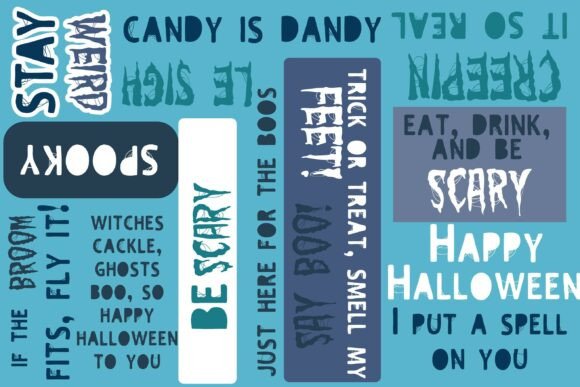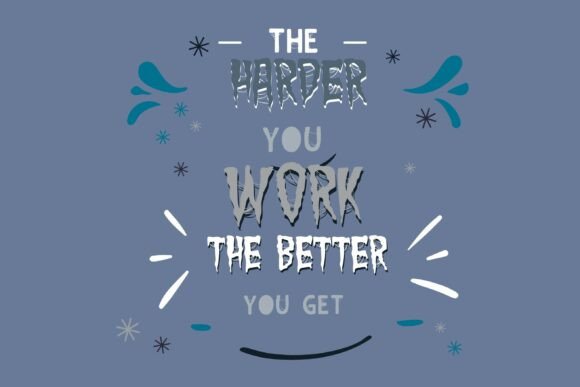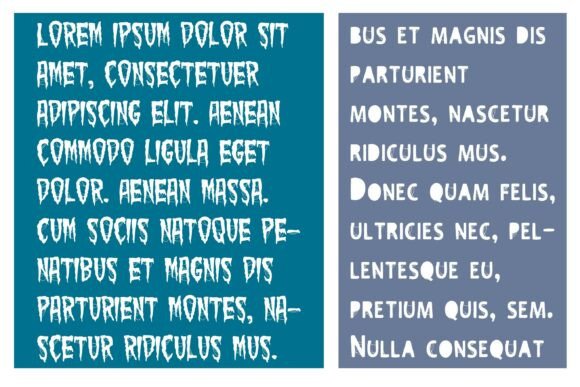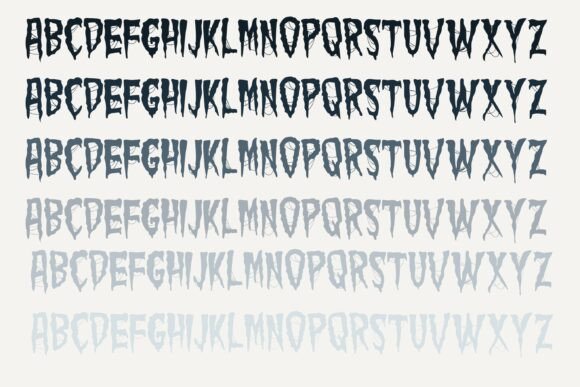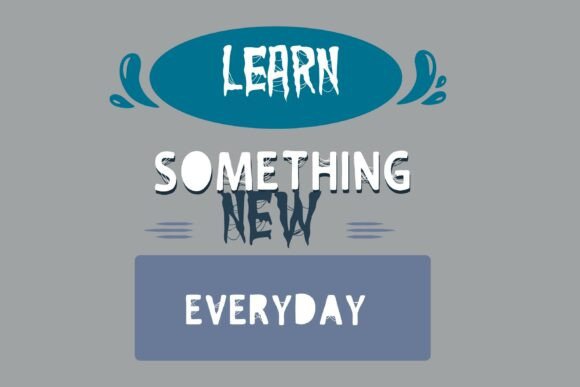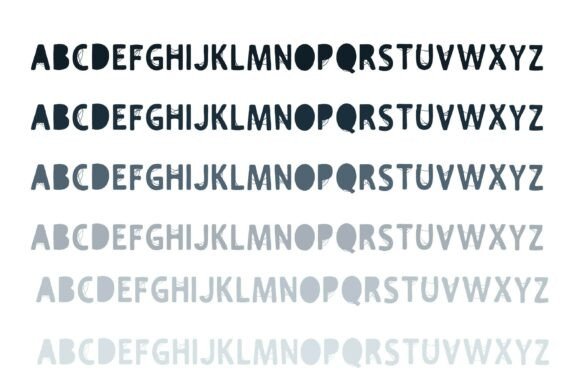
Unleashing the Dark Charm of Macabre More Duo Font
Have you ever stared at a blank canvas, trying to conjure up the perfect design for a spooky-themed project? I know I have. The flickering candles, the creepy shadows, and the eerie atmosphere all scream for a font that’s as haunting as it is beautiful. That’s where the Macabre More Duo Font comes in – a hand-crafted font duo that combines a webby, scary, pointy font with a perfectly coordinated sans serif. With all family members combined, you get 6 fonts altogether!
As a designer, I can attest to the value of having a versatile font like Macabre More Duo Font in your arsenal. It’s perfect for any creative project that requires a touch of darkness and whimsy. Whether you’re working on a horror-themed poster, a mysterious novel cover, or a gothic-inspired website, this font duo will help you create a design that’s both high-quality and visually striking. And the best part? It’s available for free download, making it an invaluable resource for designers on a budget.
Key Features of Macabre More Duo Font
- High-quality, unique design suitable for creative projects, including horror and gothic themes.
- Comes with a transparent background, allowing for easy customization and integration into various designs.
- Includes two font styles (Macabre More Duo Font Regular and Macabre More Duo Font Italic) for added versatility.
- Supports a range of languages, including English, making it suitable for international creative projects.
Honest Review: Macabre More Duo Font
I recently stumbled upon the Macabre More Duo Font, and I must say, it’s been a fantastic addition to my design resources. This font is perfect for any creative project that needs a touch of elegance and mystery.
- ✨ High quality design: The Macabre More Duo Font is a beautifully crafted font that’s sure to elevate your designs.
However, I do have a few minor complaints. The font is a bit limited in terms of its character set, and it’s not ideal for projects that require a lot of text.
- ⚠️ Limited character set: The Macabre More Duo Font only comes with a limited set of characters, which can be a bit restrictive for some designers.
- ⚠️ Not ideal for large text: The font is best used for small to medium-sized text, as it can become difficult to read when used for larger text.
Overall, I’m really impressed with the Macabre More Duo Font. While it has its limitations, it’s a high-quality font that’s perfect for any creative project. I highly recommend it as a design resource, especially for those who are looking for a free font with a unique style.
Macabre More Duo Font
The Macabre More Duo Font is a unique and versatile design resource that can add a touch of elegance to your creative project. With its high quality and transparent background, this font is perfect for any design project.
The Macabre More Duo Font is perfect for a variety of design projects, including logos, posters, business cards, and more. It’s also great for creating a spooky or eerie atmosphere in your designs.